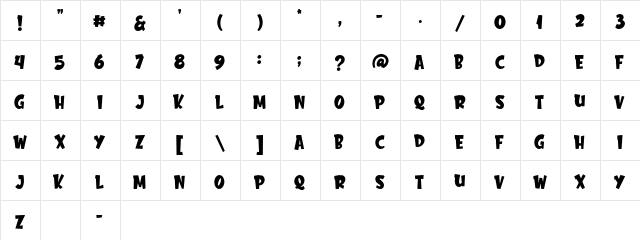
Chester Network Regular
| Designer | Abo Daniel 2020 |
Design Context for Chester Network Typeface
Chester Network is a composed and adaptable typeface that performs quietly and consistently across a wide range of design contexts.